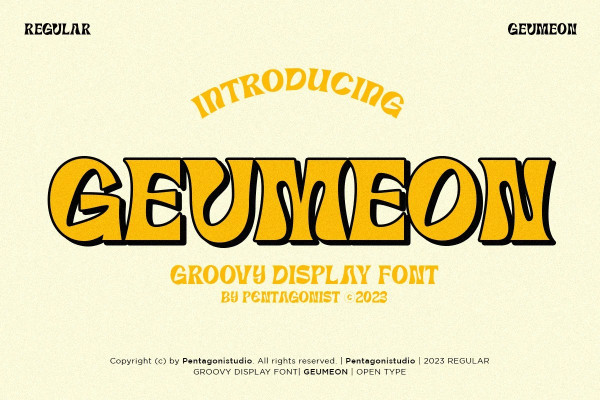
GEUMEON TYPEFACE
Geumeon Typeface Is A Groovy Display Character Inspired By Retro and Vintage Style. This font is perfect for stickers, retro projects, craft projects, shirts, svg designs, procreate designs, branding, blogs, logos, invitations and more!